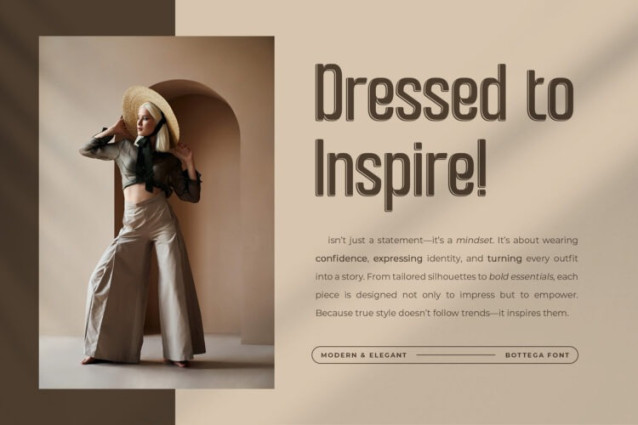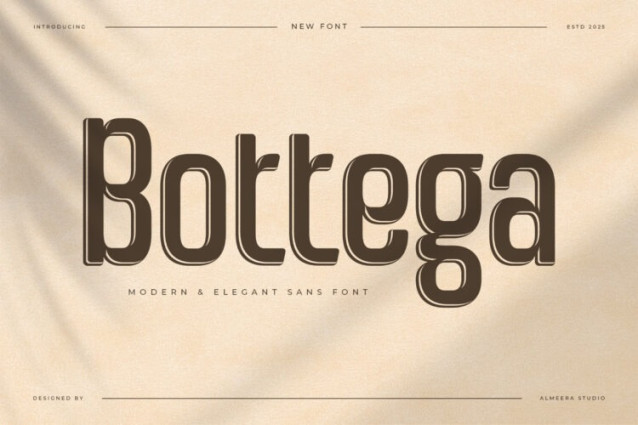
Bottega Font
Bottega Font is a modern display sans with a luxury-driven aesthetic. Characterized by elegant spacing and high contrast shapes, it’s perfect for upscale branding, fashion logos, and editorial titles. Bottega radiates refined simplicity with a touch of artistic flair.